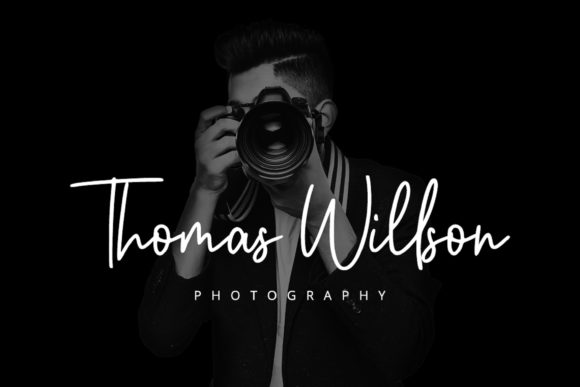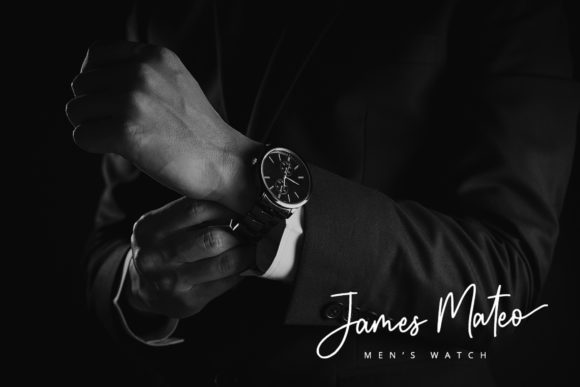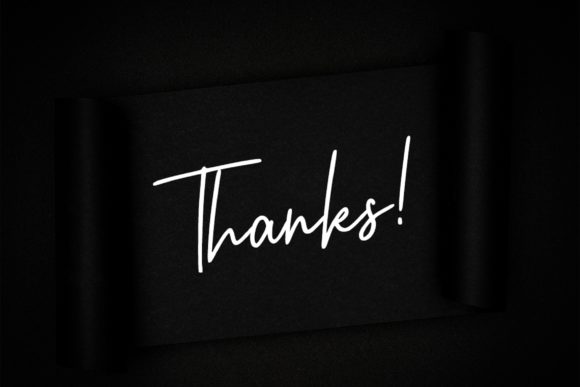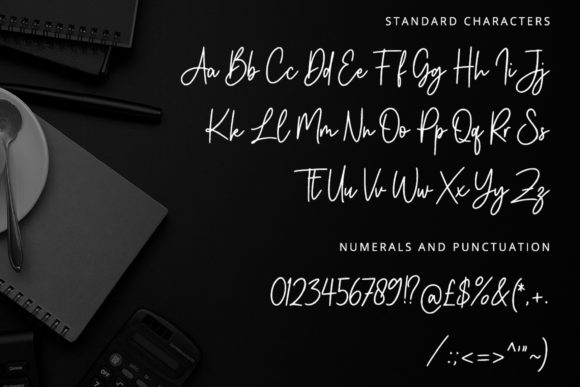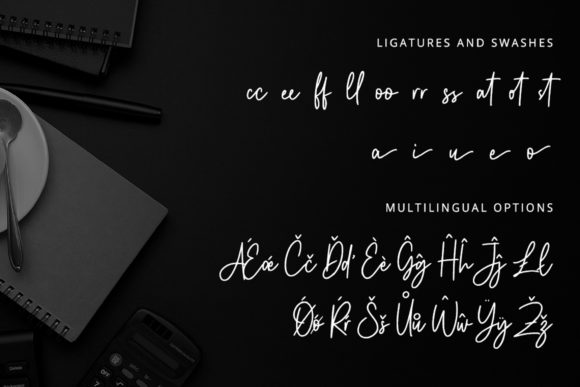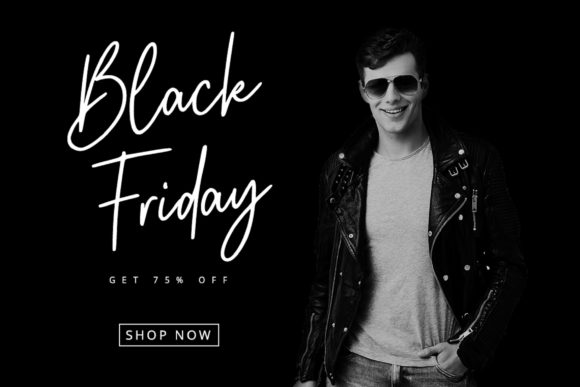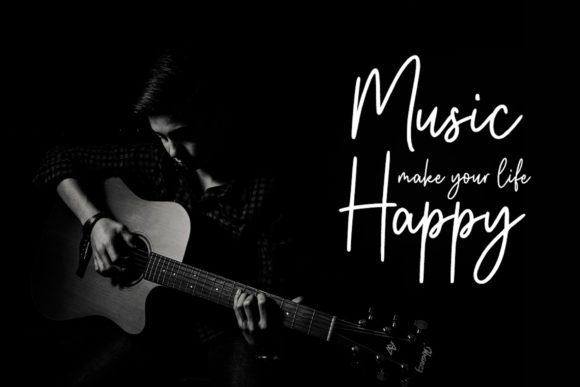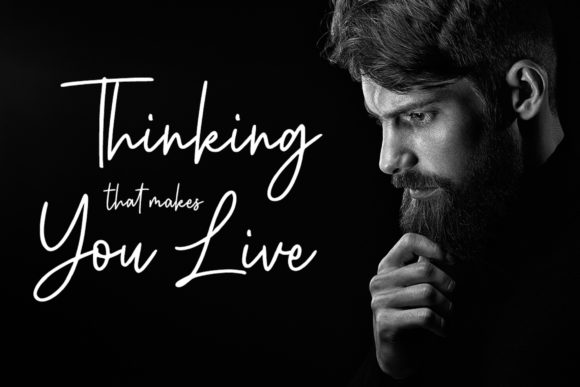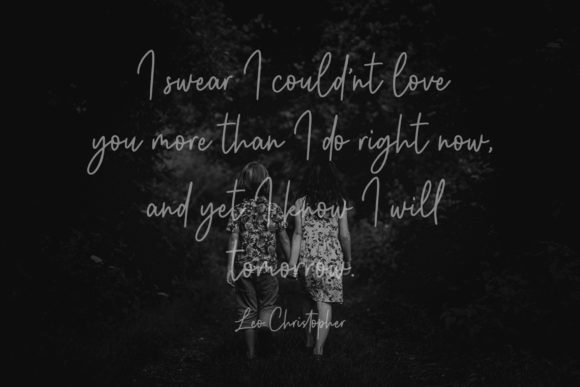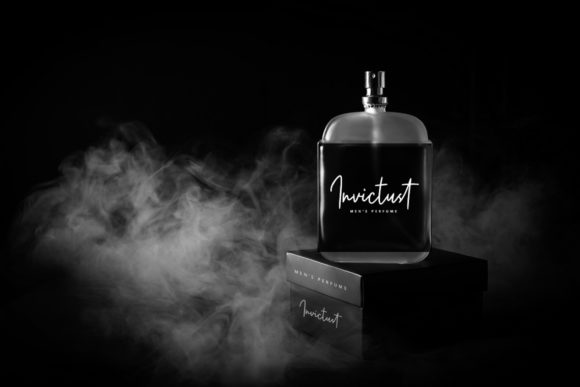
Angello Font
About Angello Font
Angello is a truly elegant and delicate script font that exudes grace and charm. With its smooth curves and flowing lines, this font is the epitome of sophistication and refinement. It is the perfect choice for fashion branding or editorial designs that require a touch of elegance and style.
One of the standout features of Angello is its varying baseline, which adds a dynamic and graceful touch to the overall design. The letters dance gracefully across the baseline, creating a visually captivating effect. This unique characteristic sets Angello apart and adds a sense of movement and fluidity to your designs.
The smooth lines of Angello further enhance its elegance and give it a polished and sophisticated appearance. Each letter is meticulously crafted with attention to detail, resulting in a font that is visually pleasing and aesthetically pleasing. The curves and strokes are precisely balanced, creating a harmonious and pleasing visual rhythm.
In addition to its smooth lines and varying baseline, Angello also boasts a stunning array of glyphs and alternates. These additional characters and variations provide you with endless possibilities to customize and personalize your designs. Whether you’re looking to add swashes, ligatures, or decorative elements, Angello has you covered.
When using Angello, it’s important to consider its versatility in fashion branding and editorial designs. Its refined and delicate nature makes it an excellent choice for high-end fashion labels, luxury brands, and editorial layouts. It can bring a touch of sophistication and glamour to any project, elevating the overall visual impact.
To fully harness the beauty and potential of Angello, make sure to explore its extensive character set and experiment with different combinations and variations. This font allows you to create unique and captivating typography that will leave a lasting impression on your audience.
Whether you’re designing a fashion magazine spread, creating a logo for a luxury brand, or working on an editorial layout, Angello will add an air of elegance and grace to your designs. Its smooth curves, varying baseline, stunning glyphs, and alternates make it a versatile and captivating choice for any fashion-related project.
Consider incorporating Angello into your design toolkit and let its charm and sophistication elevate your fashion branding and editorial designs to new heights.